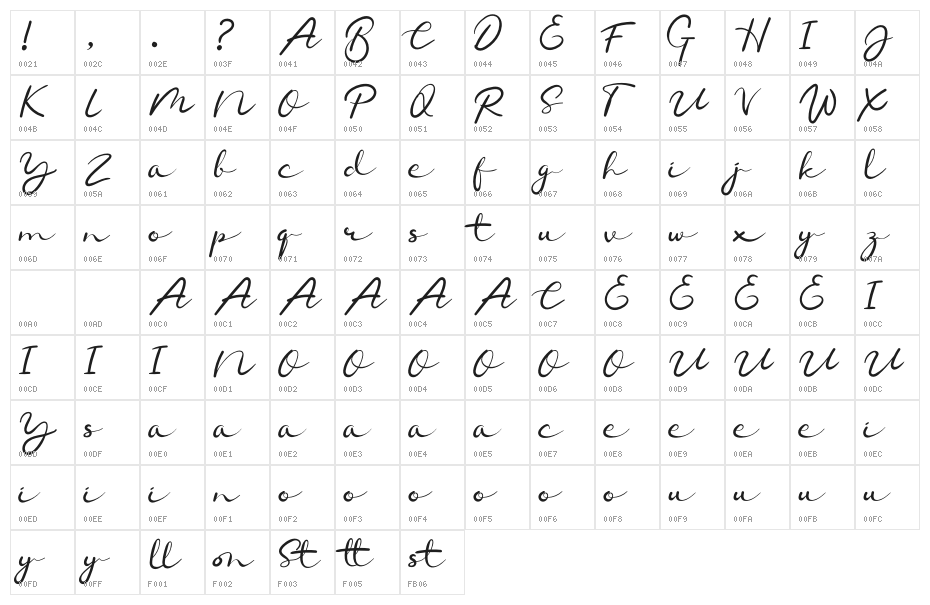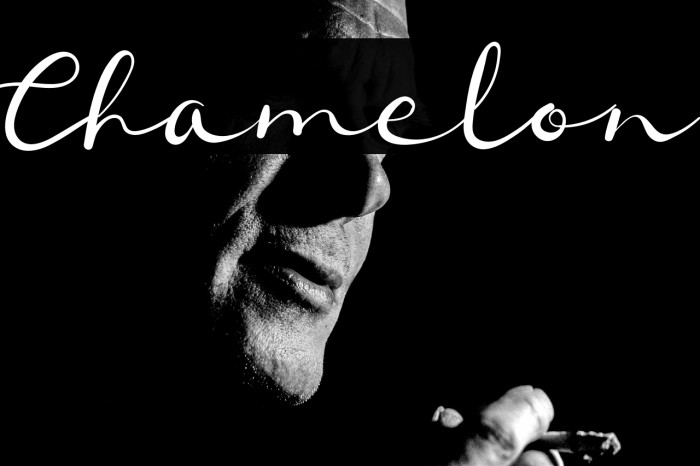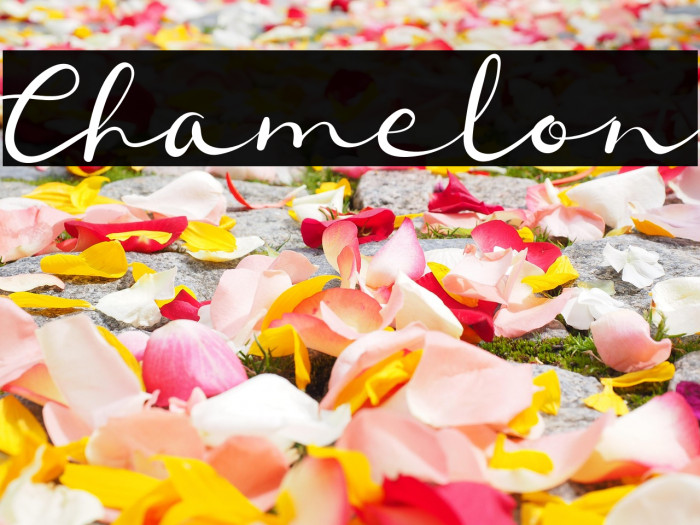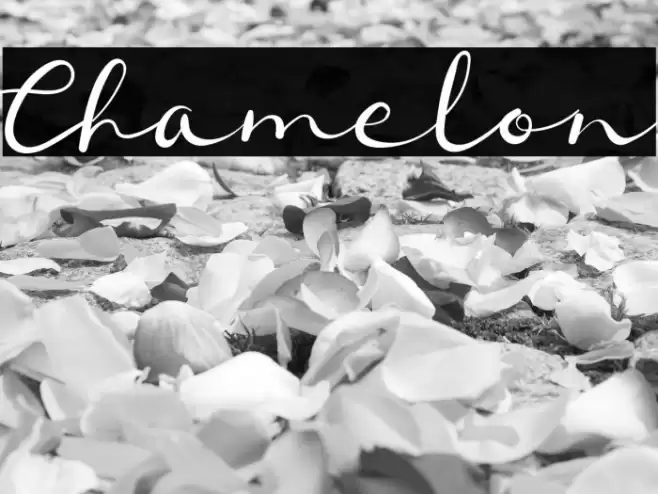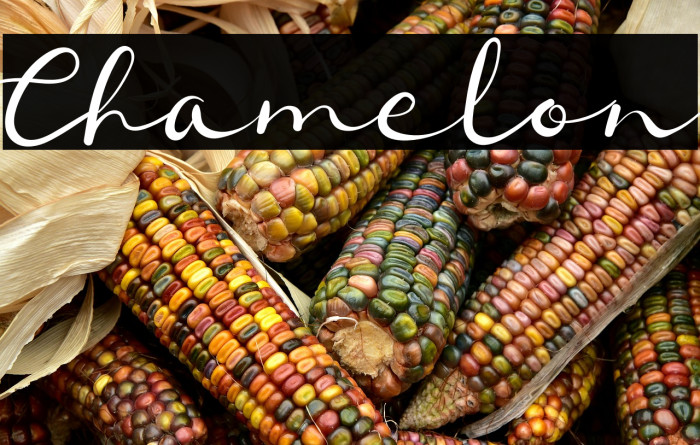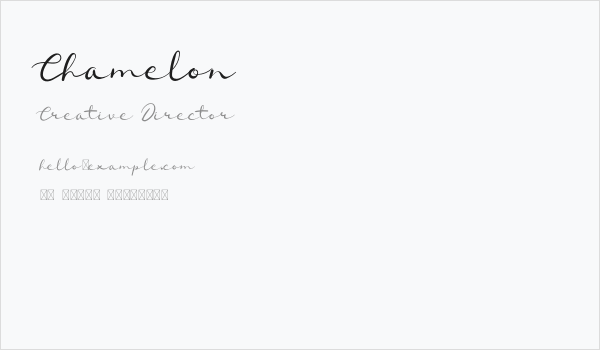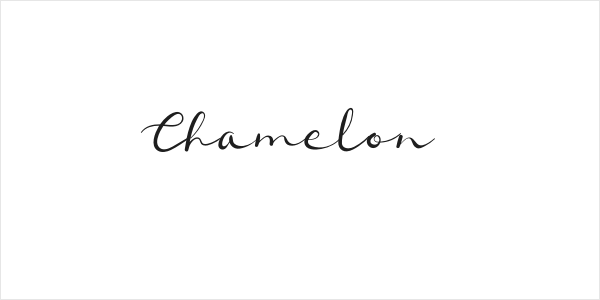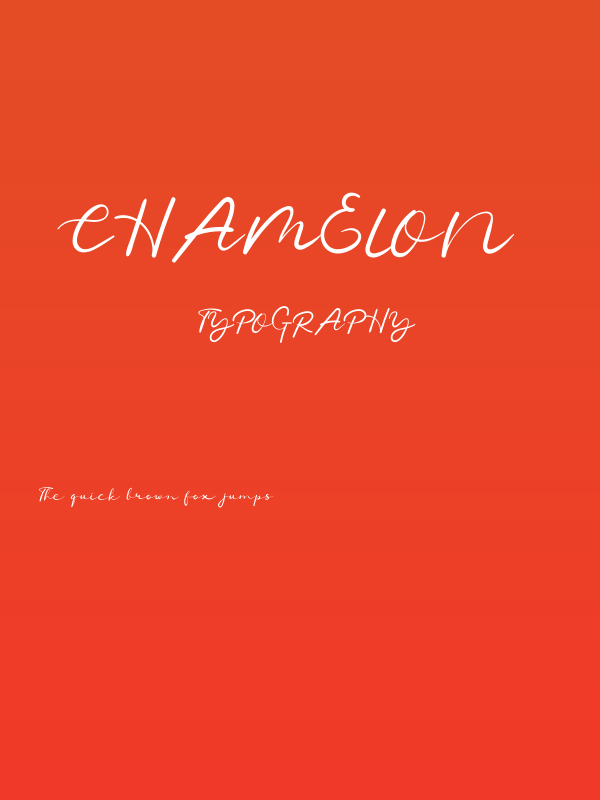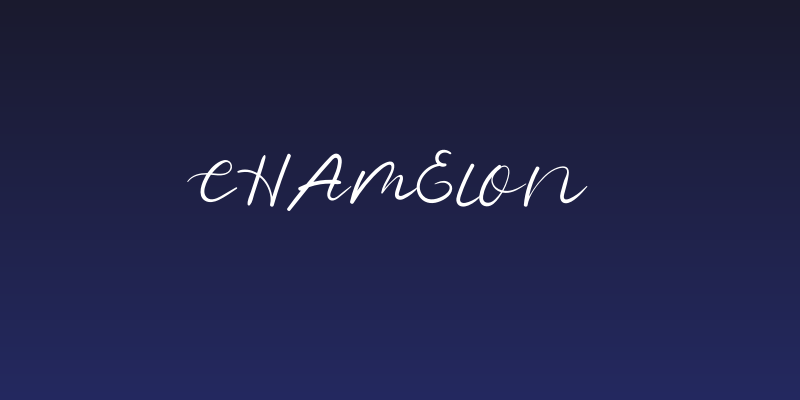
Chamelon Font
Chamelon Description
This elegant script font features flowing, cursive letters with a natural, handwritten feel. The uppercase letters are bold and slightly slanted, giving a sense of movement and grace. The lowercase letters are more delicate, with smooth, continuous strokes that connect seamlessly. The overall design is sophisticated and stylish, perfect for adding a personal touch to any project. The font maintains a consistent stroke width, providing a balanced and harmonious appearance. It is ideal for creative designs that require a touch of elegance and flair.
| Proposed Projects | Ideal for wedding invitations, greeting cards, branding, and elegant logo designs. |